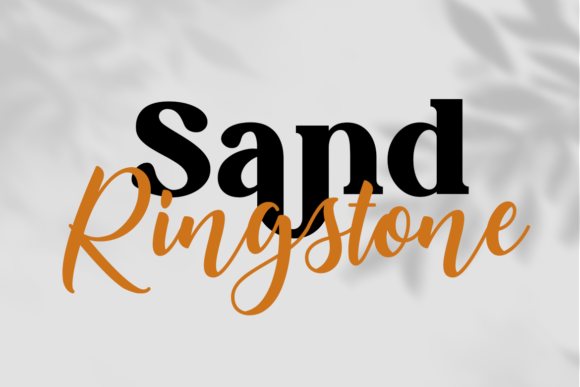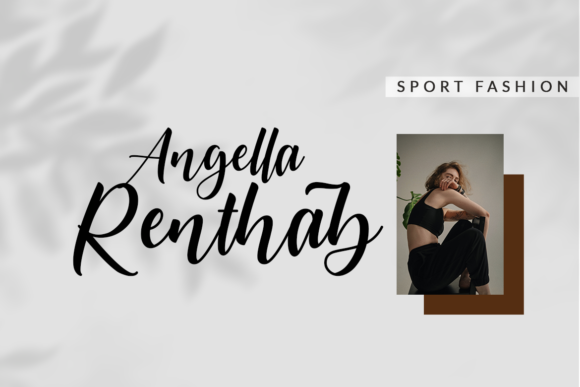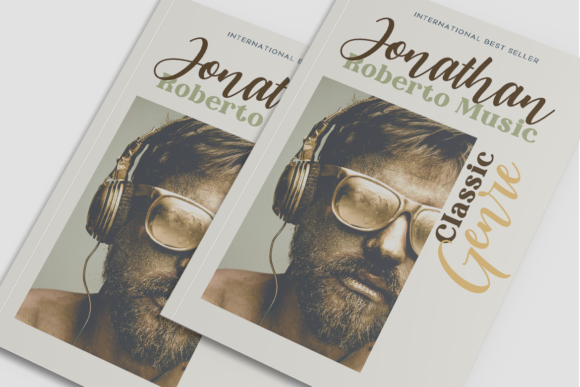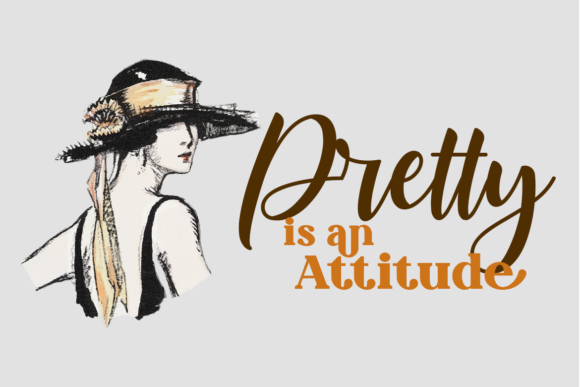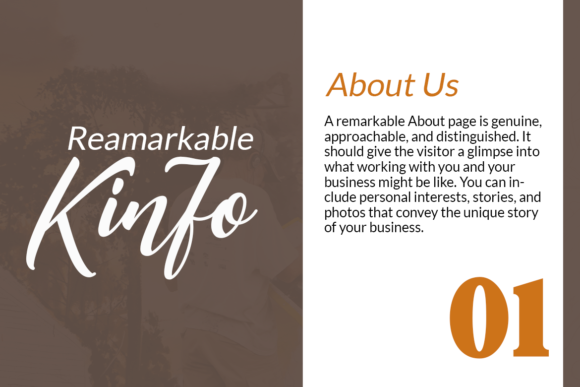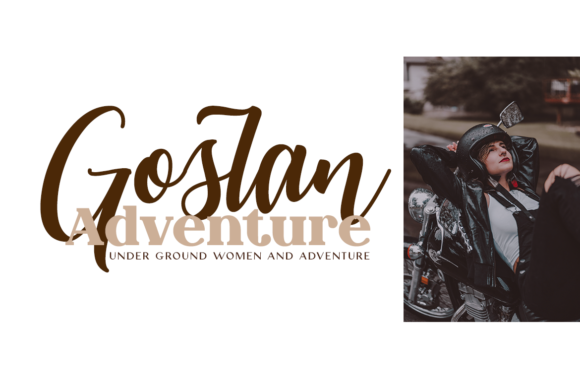
Introducing Fillberty: A Retro Script Font with a Nostalgic Touch
Are you tired of using the same old fonts in your designs? Look no further! We’re excited to introduce Fillberty, a retro script font that adds a touch of nostalgia to any project. With its unique blend of elegance and playfulness, Fillberty is the perfect addition to your font library.
A Font for Every Occasion
Whether you’re working on a logo design, social media graphics, movie titles, book covers, or even a long text letter, Fillberty is the ideal choice. Its versatility and timelessness make it suitable for a wide range of applications. You can use it as a primary font or as a secondary font paired with sans or serif fonts to add a touch of sophistication.
What Makes Fillberty Special?
Fillberty is an incredibly distinct, delicate, and timeless handwritten font. Its retro vibe is reminiscent of classic designs from the past, but with a modern twist that makes it perfect for contemporary projects. The font’s unique character set includes a range of glyphs and ligatures that can be accessed with ease, thanks to its PUA (Private Use Area) encoding.
Key Features of Fillberty
- Retro script font: Fillberty has a nostalgic touch that adds a touch of elegance to any design.
- Timeless and versatile: Suitable for a wide range of applications, from logo design to long text letters.
- Distinct and delicate: Fillberty’s unique character set makes it stand out from other fonts.
- PUA encoded: Easy access to glyphs and ligatures for added creativity.
- Pair it with sans or serif fonts: Use Fillberty as a secondary font to add a touch of sophistication.
Why Designers and Crafters Love Fillberty
Designers and crafters love Fillberty for its ability to add a personal touch to their projects. The font’s unique character set and nostalgic vibe make it perfect for creating custom designs that stand out from the crowd. Whether you’re working on a branding project, social media graphics, or a personal craft project, Fillberty is the ideal choice.
Tips for Using Fillberty
Here are some tips for getting the most out of Fillberty:
- Use it sparingly: Fillberty is a statement font, so use it sparingly to add emphasis to your design.
- Experiment with colors: Fillberty looks great in a range of colors, from bold and bright to soft and pastel.
- Pair it with contrasting fonts: Pair Fillberty with sans or serif fonts to create visual interest.
- Play with glyphs and ligatures: Use Fillberty’s PUA encoding to access a range of glyphs and ligatures.
In conclusion, Fillberty is a unique and versatile retro script font that adds a touch of nostalgia to any project. Its timeless and elegant design makes it perfect for a wide range of applications, from logo design to long text letters. With its PUA encoding and range of glyphs and ligatures, Fillberty is a font that will take your designs to the next level.